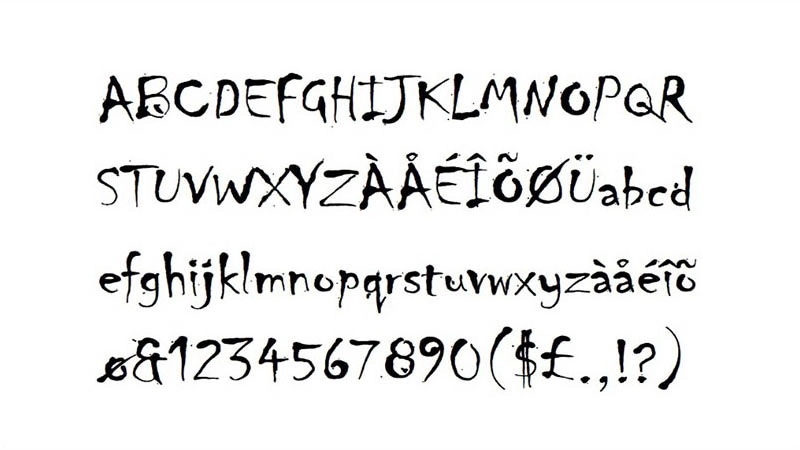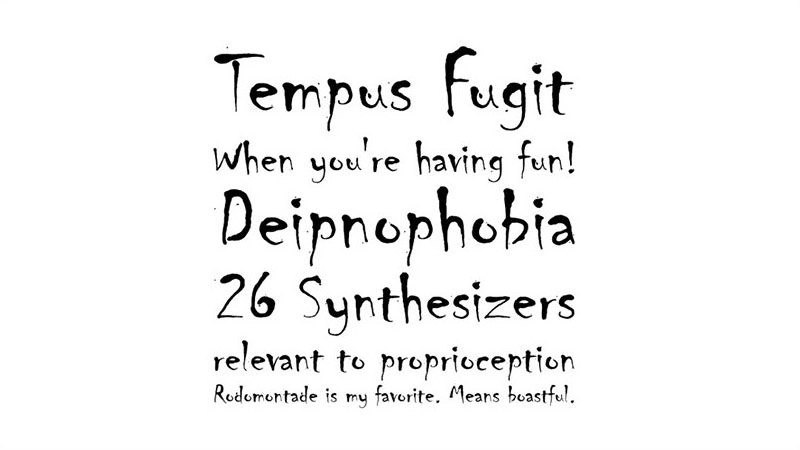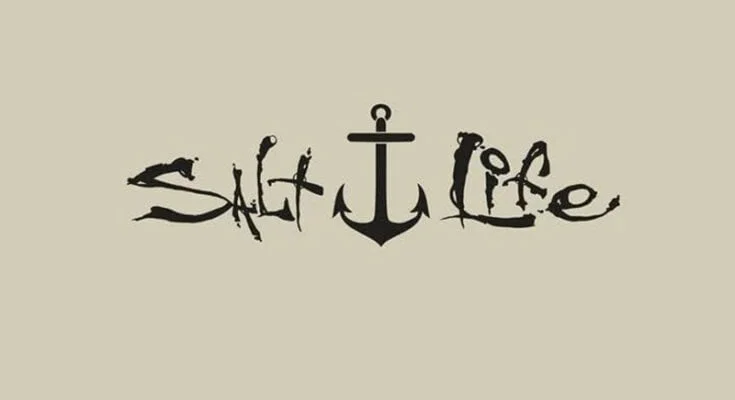
Salt Life Font
Salt Life Font is a logo typeface that we have seen in American base clothing brand Salt Life. Basically, this brand sells sports clothes related to fishing and surfing.…
Salt Life Font is a logo typeface that we have seen in American base clothing brand Salt Life. Basically, this brand sells sports clothes related to fishing and surfing.
That’s why the designer for its title used such unique font for making it related to fishing and surfing topics. It’s a famous brand in America & Canada, so many designers want to work along with its branding font.